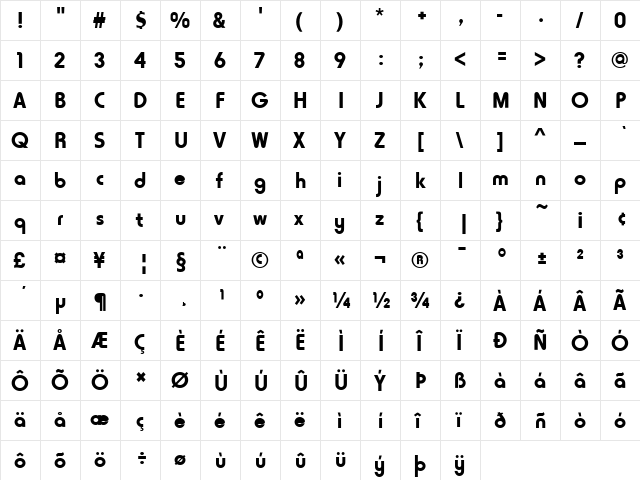
Horatio D Regular
Design Context for Horatio D Typeface
Horatio D is a composed and adaptable typeface that performs quietly and consistently across a wide range of design contexts.